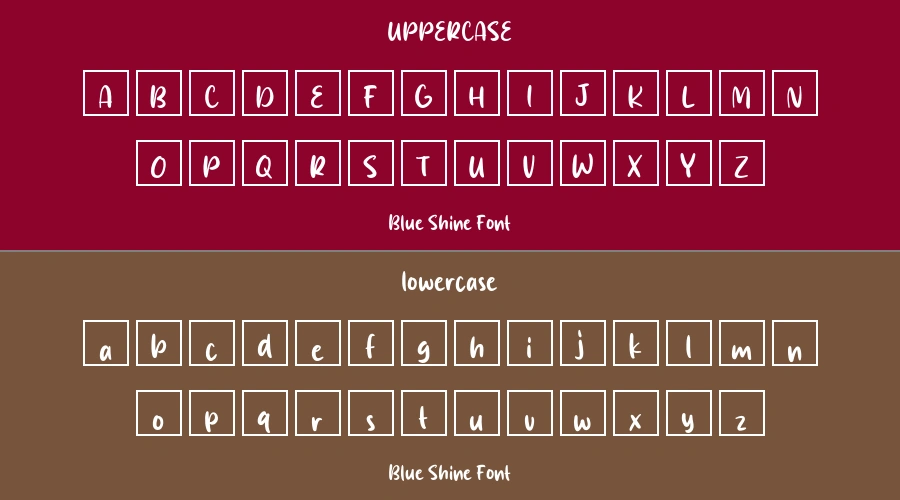
About Blue Shine Font
Designed with precision, Blue Shine Font merges elegant proportions with personality in every character. This versatility makes it particularly effective for financial statements, where impact and aesthetic excellence directly impact communication quality. Each letterform demonstrates meticulous craftsmanship.
Technical excellence shines through elements like systematic design and tabular figures, enhancing typographic versatility. In artistic statements settings, Blue Shine Font proves its worth through superior table alignment. The thoughtful execution of spine curvature and professional recognition ensures professional results.